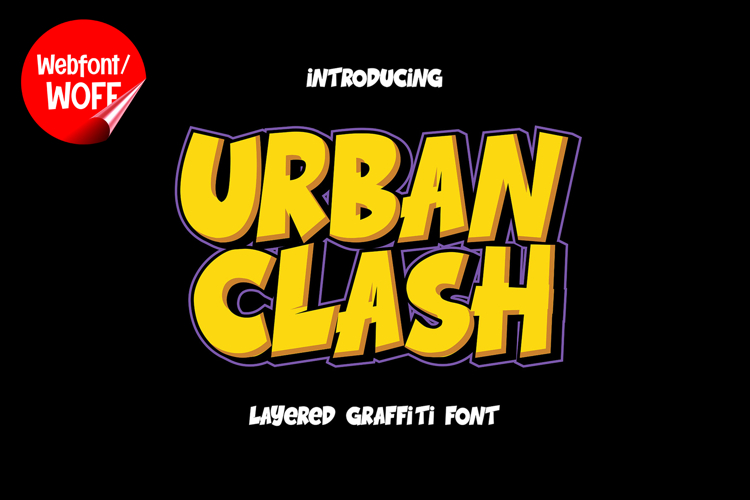
Urban Clash | 3D Layered Graffiti Webfont for Bold Street
Urban Clash is a 3D layered graffiti webfont designed to bring powerful street energy and dimensional style into modern website design. Inspired by urban wall art, layered spray paint techniques, and bold graffiti lettering, this font features thick forms and striking depth that create a strong and eye-catching typographic identity. It is an excellent choice for projects that aim to stand out with an edgy and creative visual presence.
Urban Clash includes a complete set of uppercase characters designed with graffiti-inspired shapes enhanced by 3D layered effects. The dimensional structure gives each letter added depth and visual strength, while the dynamic forms create a sense of movement and urban attitude. These characteristics make it ideal for headlines, banners, hero sections, and featured content where strong visual impact is essential.
In addition to letters, the font includes numbers and punctuation, allowing flexible usage across various parts of a website. It works well for promotional campaigns, music platforms, gaming websites, event posters, branding elements, and creative portfolios. Each character maintains a consistent layered graffiti style, ensuring a cohesive and unified visual identity throughout the design.
With multilingual support, Urban Clash includes a wide range of accented characters, making it suitable for international websites and global audiences. This ensures content remains clear and visually consistent across different languages while preserving the bold urban aesthetic.
The 3D layered graffiti style of Urban Clash makes it especially suitable for streetwear brands, entertainment platforms, esports interfaces, urban blogs, and digital campaigns. Its layered and dimensional appearance adds intensity and personality, helping websites stand out in visually competitive environments. The combination of depth and graffiti influence creates a modern street-art atmosphere.
Despite its bold and decorative appearance, Urban Clash is designed with readability in mind. The spacing and proportions are carefully balanced to ensure clarity, particularly in display sizes. This makes it effective for impactful headings and short content elements where both style and usability are important.
Urban Clash is a webfont that combines graffiti aesthetics with dimensional layering and modern web performance. Its bold shapes, urban character, and layered depth create a distinctive typographic presence that enhances website design. For projects that require a strong, edgy, and visually engaging graffiti font, Urban Clash offers a powerful and versatile solution.